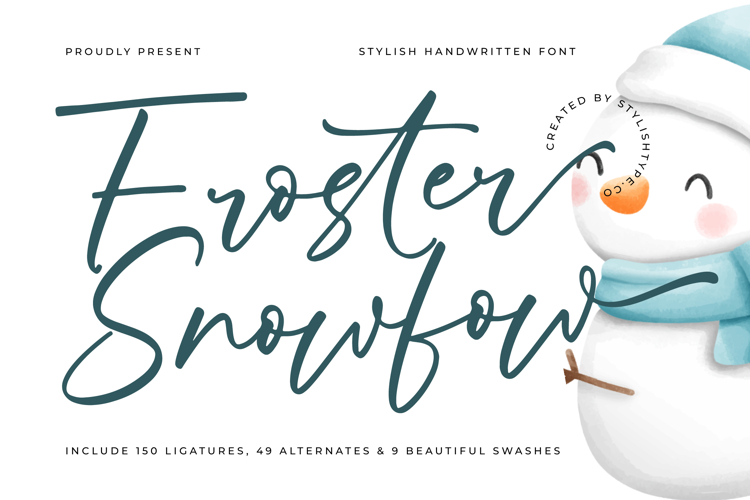
Froster Snowfow Stylish Handwritten Font
Froster Snowfow - Stylish Handwritten Font lies in its expansive OpenType features, including 150 ligatures, 49 alternates, and 9 beautiful swashes. This wealth of glyphs ensures maximum versatility, allowing designers to craft completely unique wordmarks and titles while maintaining the seamless flow of natural calligraphy. Utilize these features to eliminate distracting repetition and build truly memorable visual branding across all mediums.
Ligature Alternates & Swashes